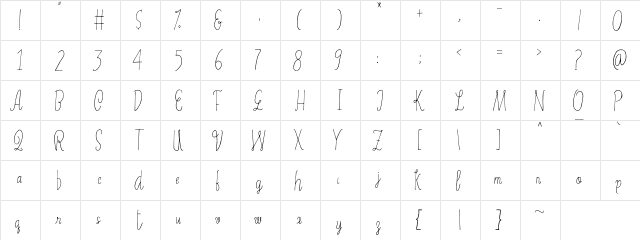
Erica Regular Font Preview
Erica Regular
Erica Regular Font Details
Design Context for Erica Typeface
Erica offers clean, dependable letterforms without strong stylistic allegiance, making it a practical choice for designers who need flexibility.